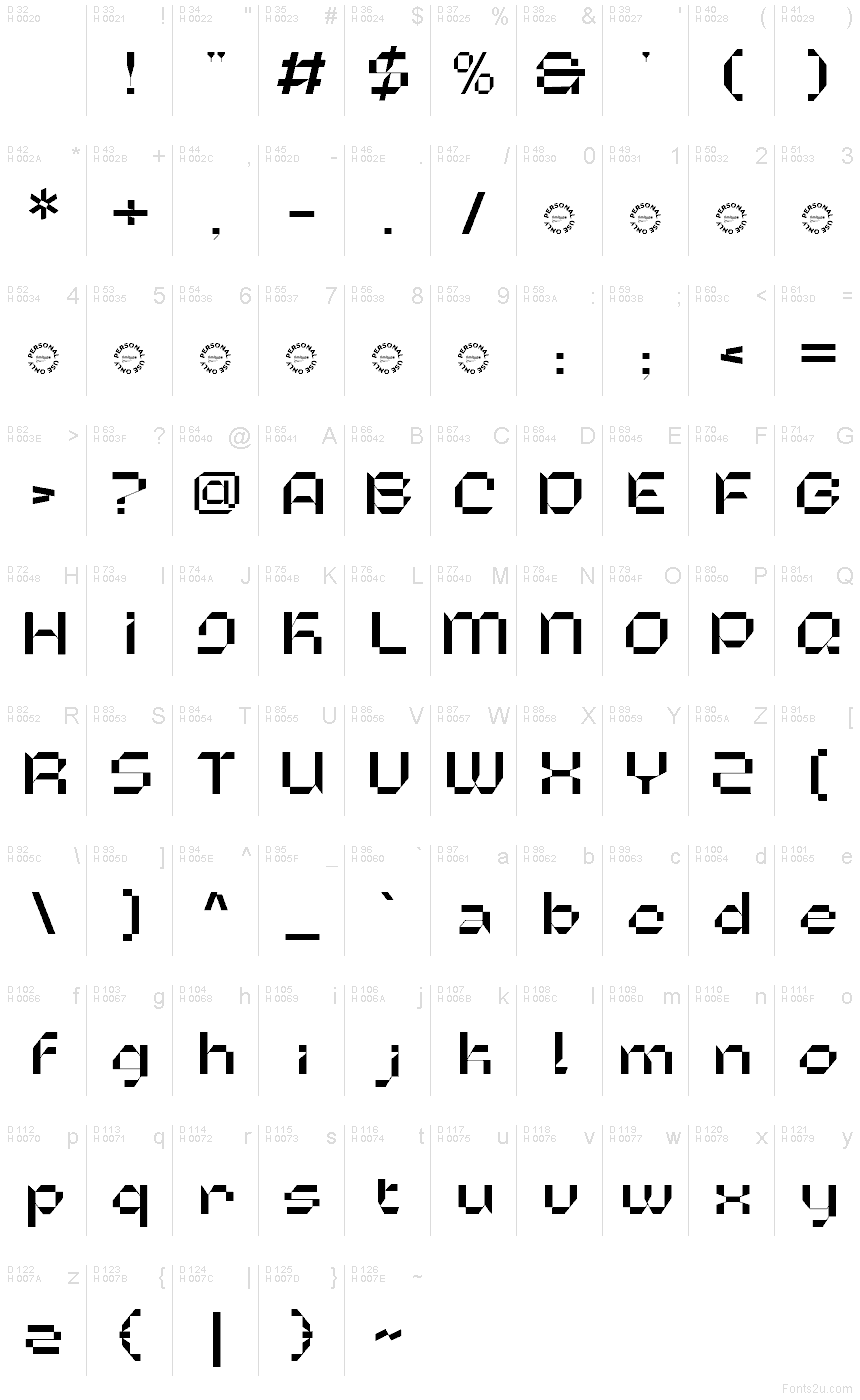
Microbots Demo Regular
Microbots font is a digital display font designed by Muhammad Muammar of Limitype. This expanded font has a modern, futuristic look with geometric and angular shapes sure to give projects a unique appearance. Its letters are visible and designed with minimalism in mind for the best results.
This free display font can be used in electronic store branding, sci-fi movie posters, product packages, video captures, electronics ads, digital applications, websites, futuristic magazine headlines or covers, technology presentations among other things!
Microbots font is a digital display font designed by Muhammad Muammar of Limitype. This expanded font has a modern, futuristic look with geometric and angular shapes sure to give projects a unique appearance. Its letters are visible and designed with minimalism in mind for the best results.
This free display font can be used in electronic store branding, sci-fi movie posters, product packages, video captures, electronics ads, digital applications, websites, futuristic magazine headlines or covers, technology presentations among other things!